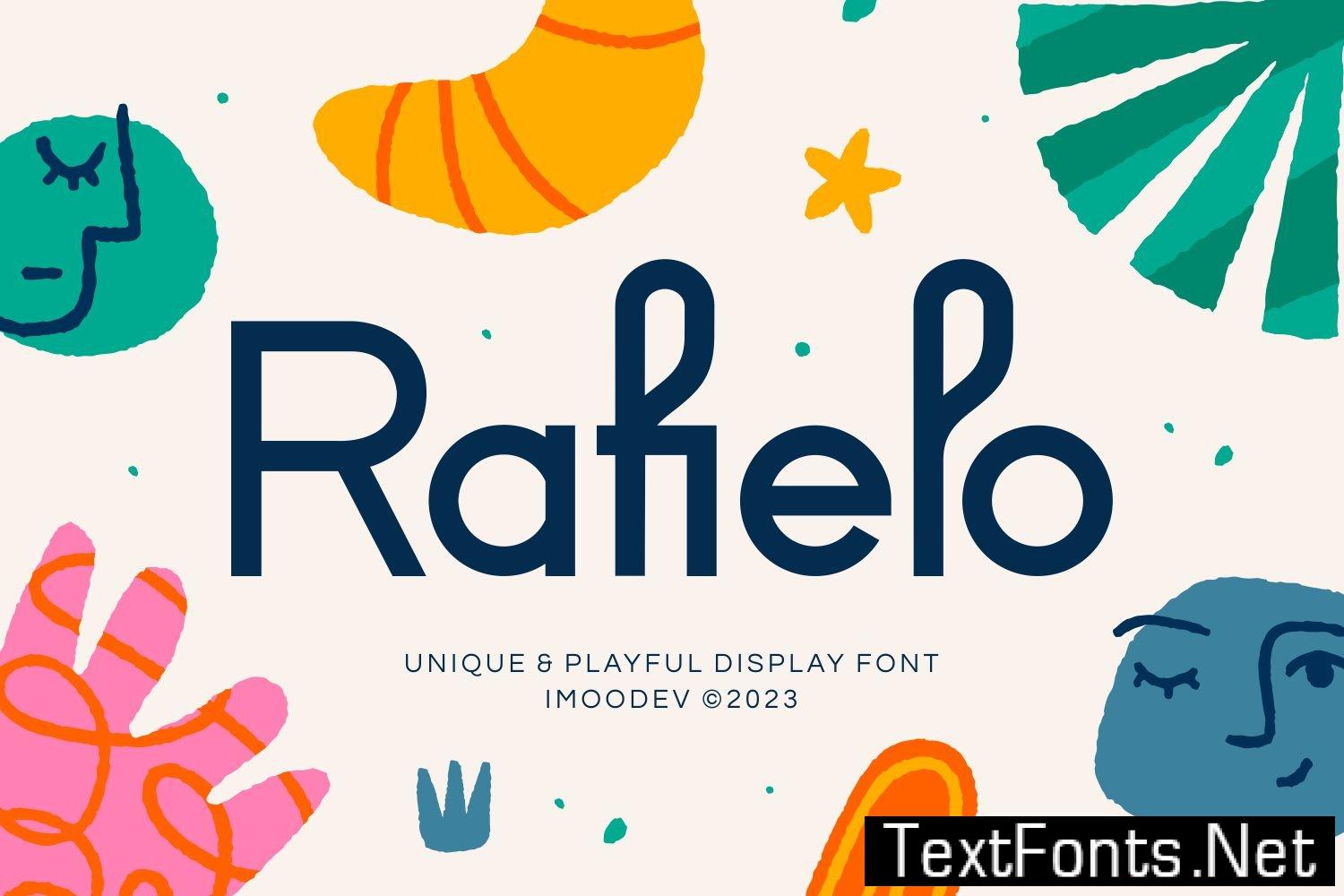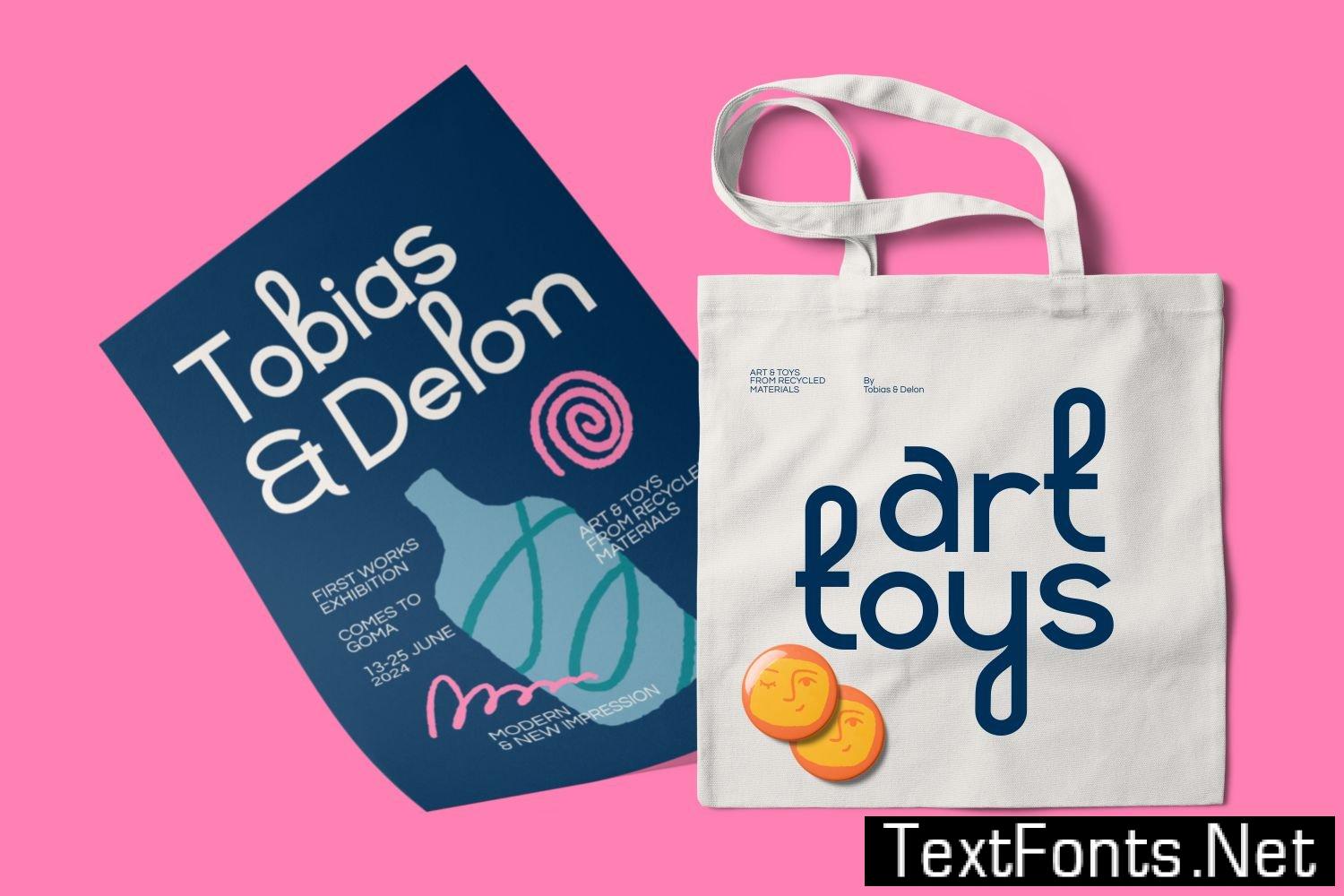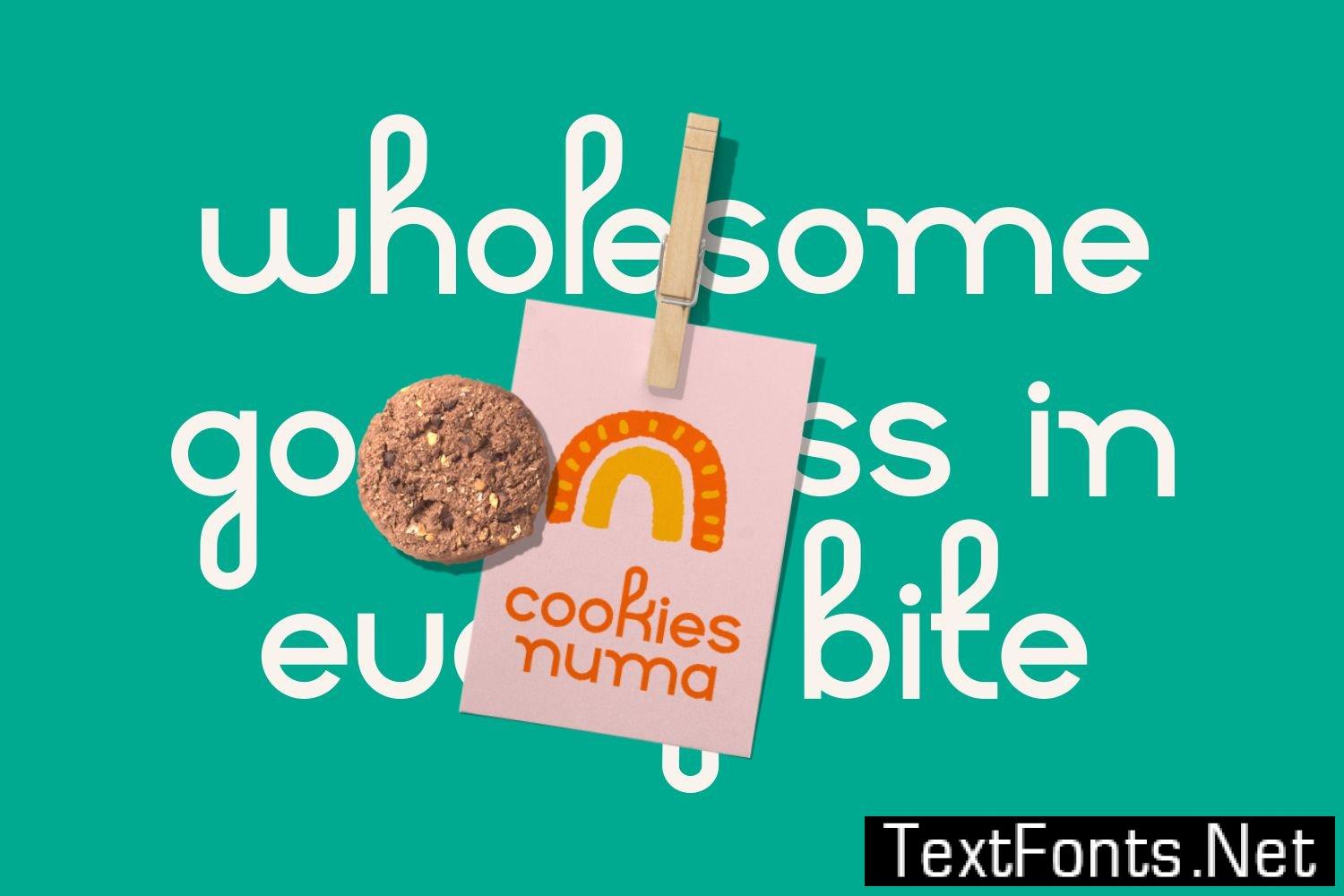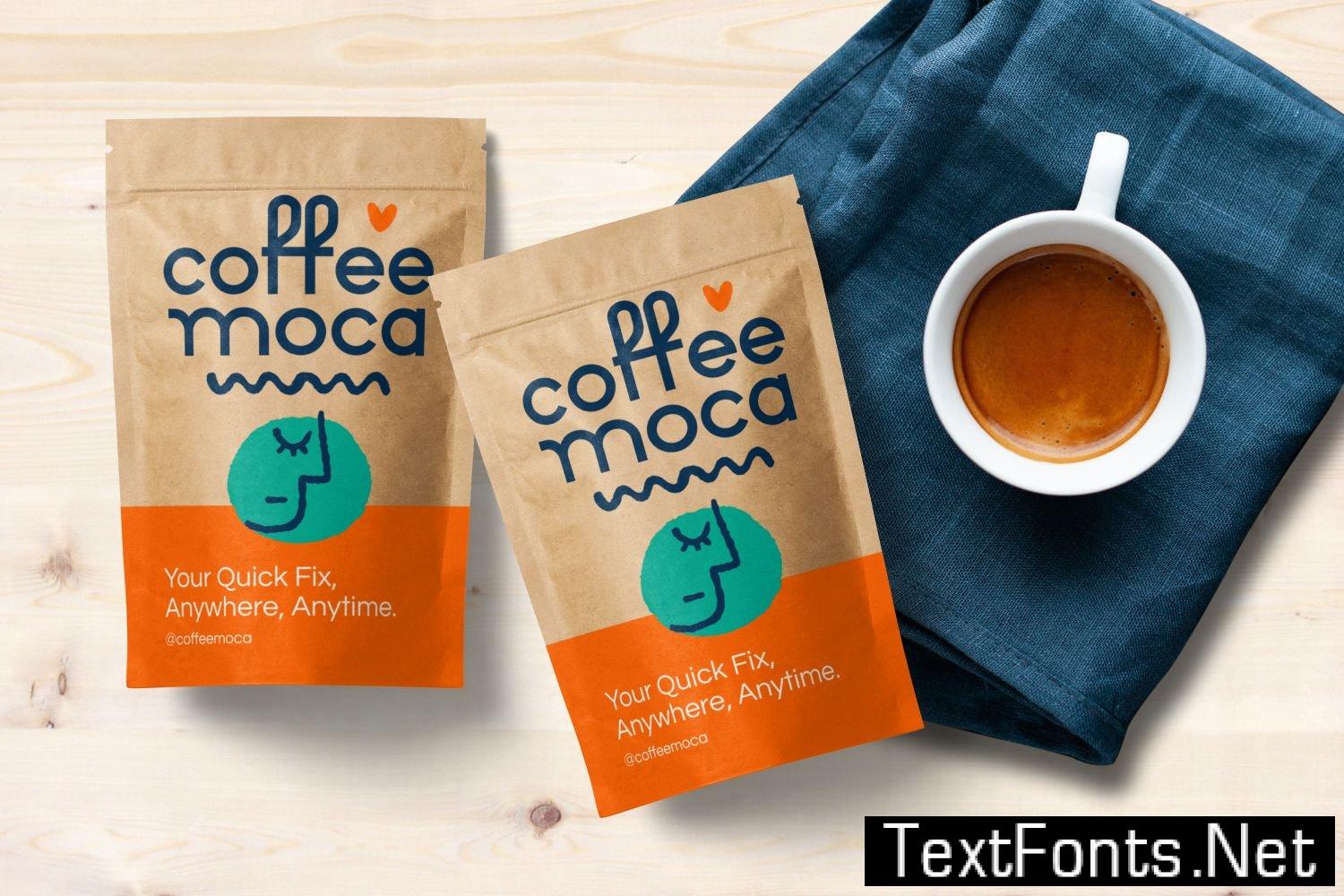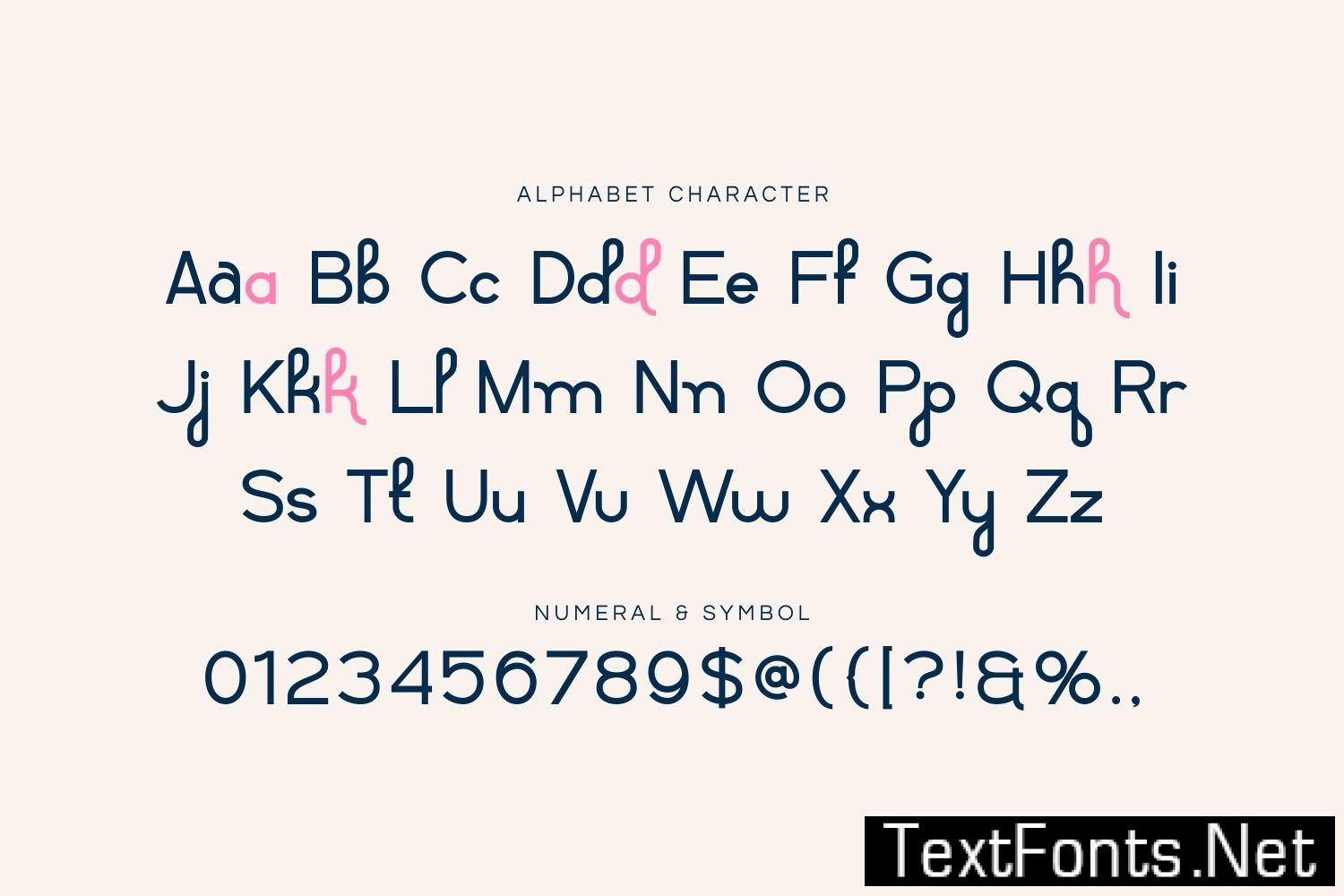
Rafielo born from hand-lettered style combines fun and playful.
Great for stand-out quotes, playful branding, children’s books, logo designs, quirky greeting cards, product packaging, merchandise and so much more!
**Features:**
* Uppercase and Lowercase
* Punctuation, Alternates and, Ligatures
* Number and Symbol
* Multilingual Support
* Opentype Features